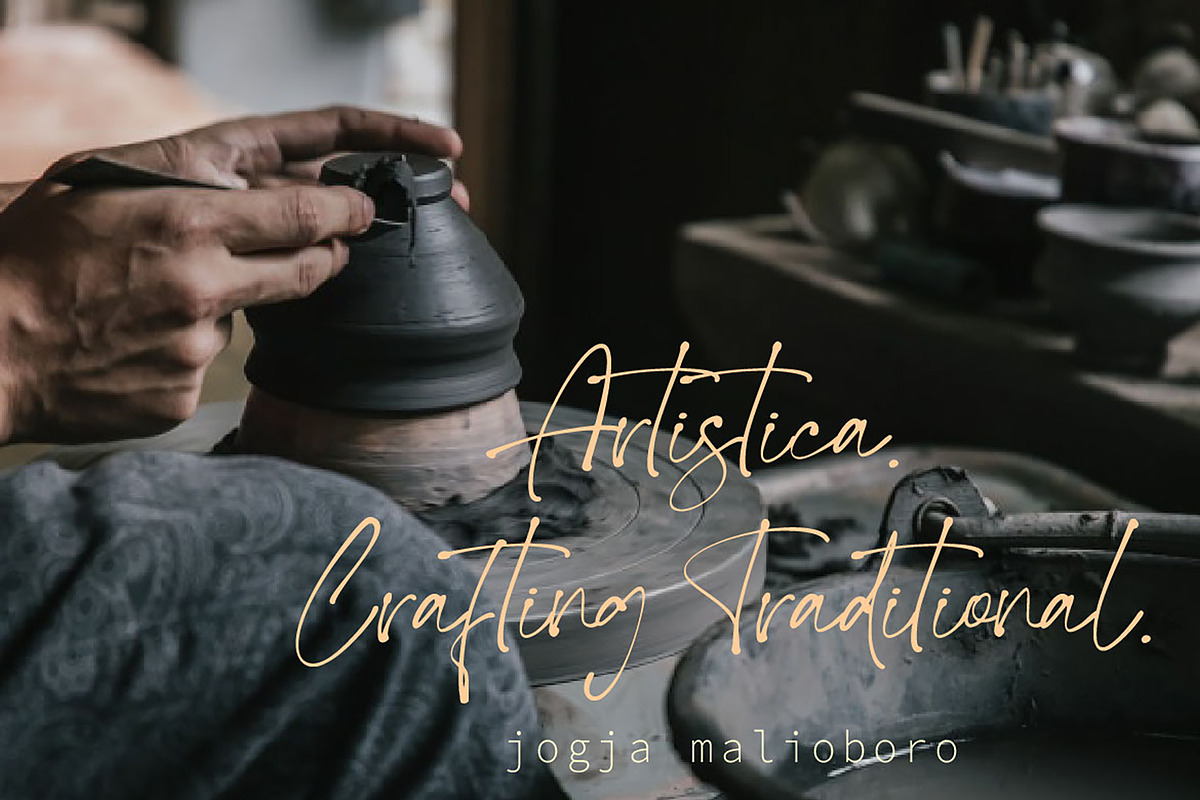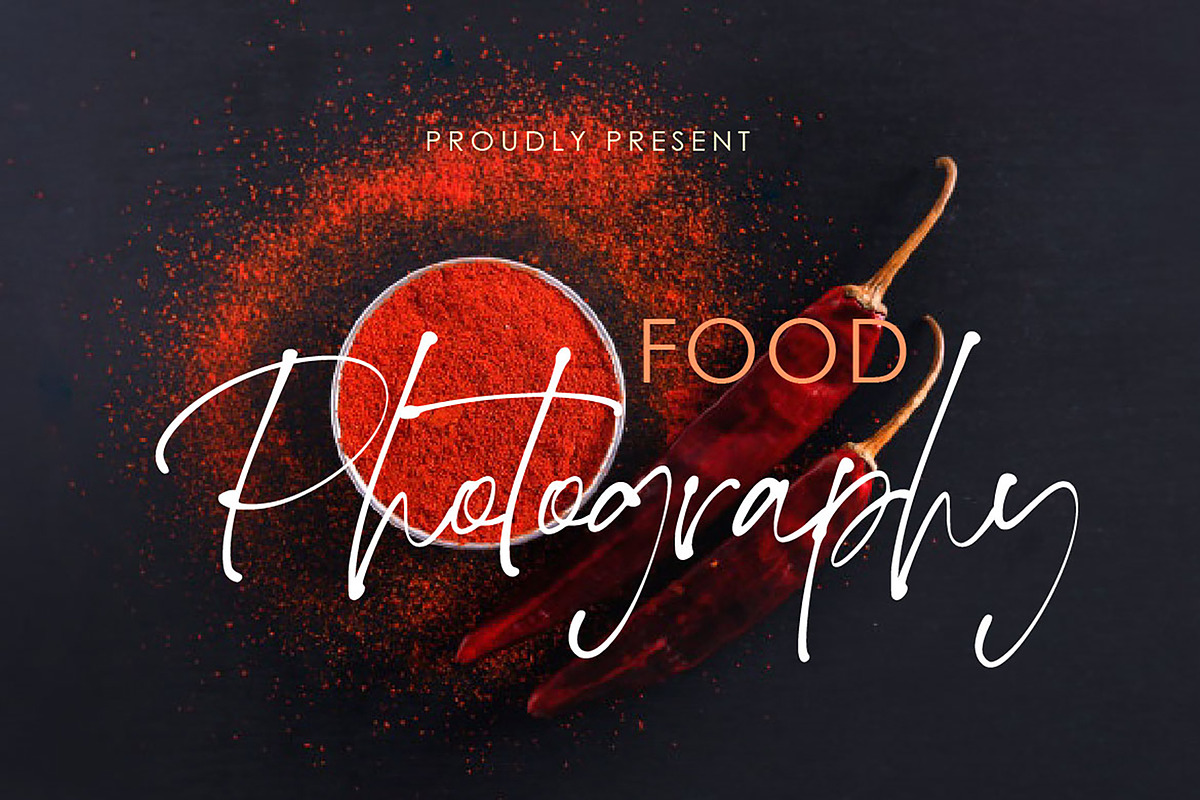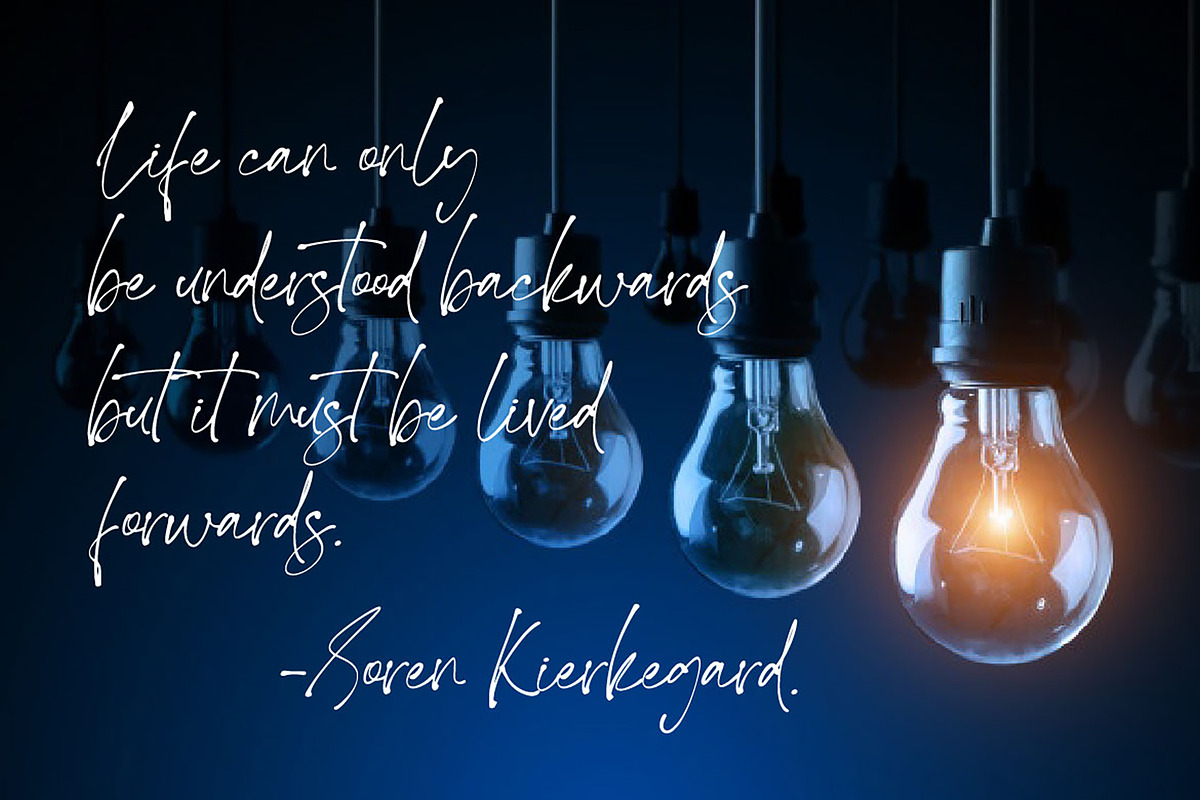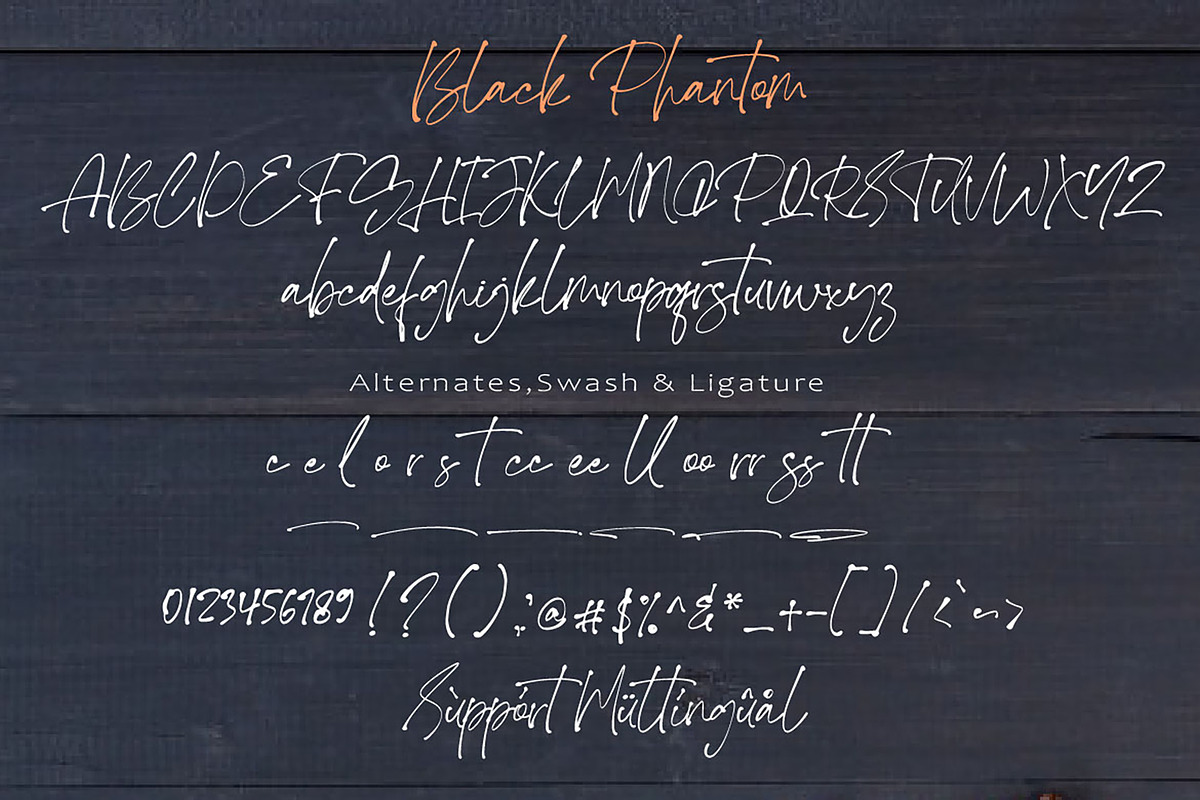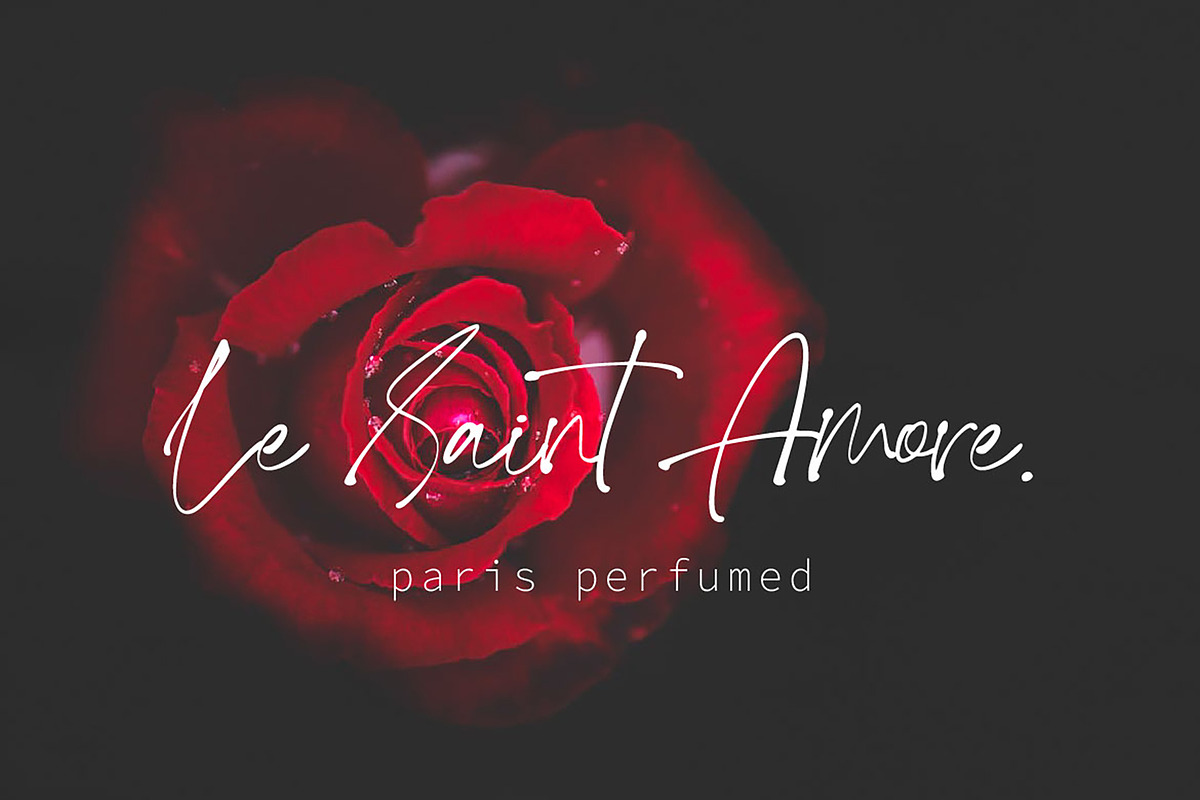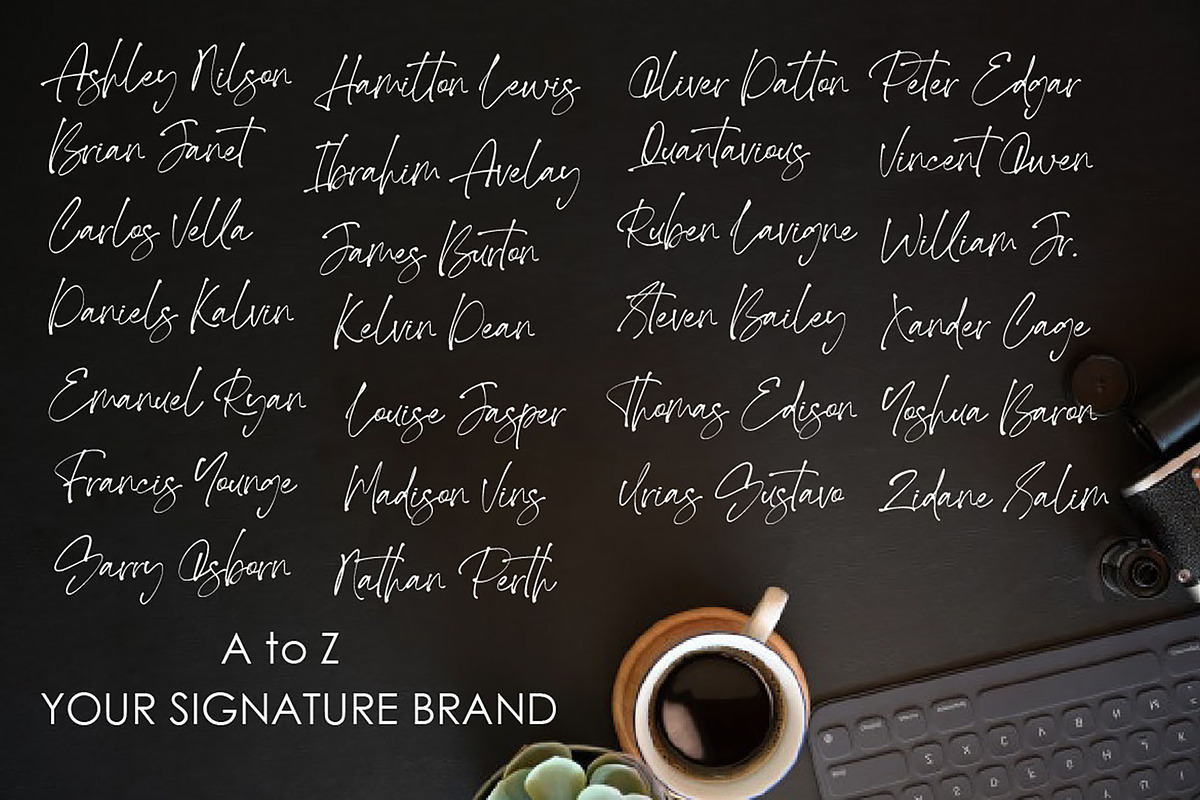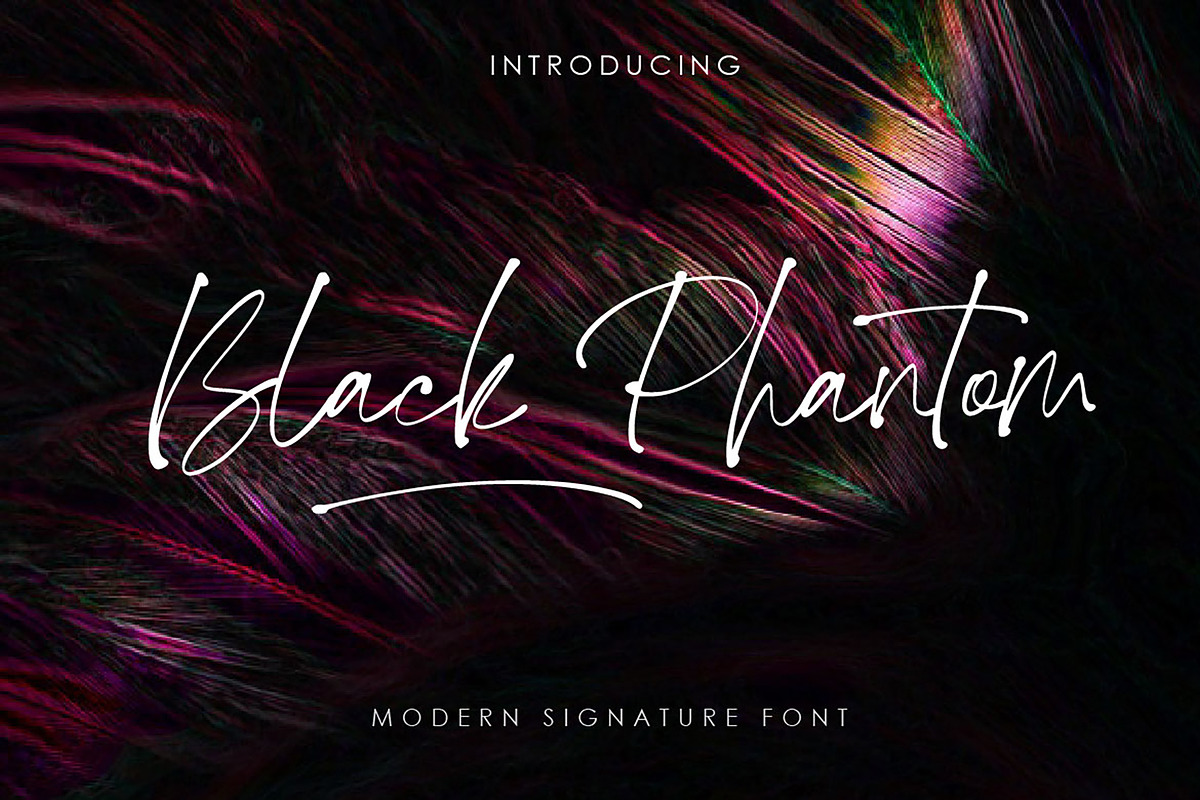
Black Phantom
Black Phantom font is a modern and elegant signature font with varying thickness and a charming gesture.
This font is great for your creative projects such as watermark on photography, and perfect for logos & branding, photography, invitation, watermark, advertisements, product designs, stationery, wedding designs,label, product packaging, social media, movie titles, books titles, a short text even a long text letter and good for your secondary text font with sans or serif. And also for special events or anything that need handwritting taste.